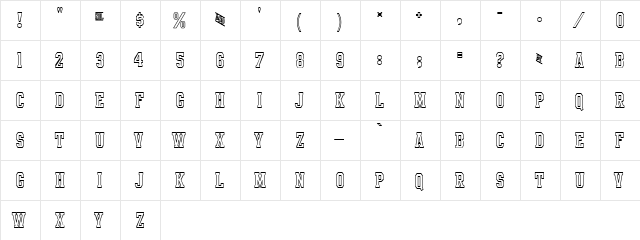
Intramural Outline JL Regular Font Preview
Intramural Outline JL Regular
Intramural Outline JL Regular Font Details
| Foundry | Jeff's Fonts & Dingbats |
| Designer | Jeff Levine from a Ray Larabie original |
Design Context for Intramural Outline JL Typeface
Intramural Outline JL brings ornamental detail and strong personality to headlines and identities, where visual impact matters more than quiet functionality.
Font Pairing: Pair with a clean neutral sans-serif for body copy to let Intramural Outline JL's character lead without overwhelming the composition.
Pro Tip: Treat Intramural Outline JL as the centrepiece of your typographic hierarchy. One strong heading set in a decorative face can carry an entire layout.